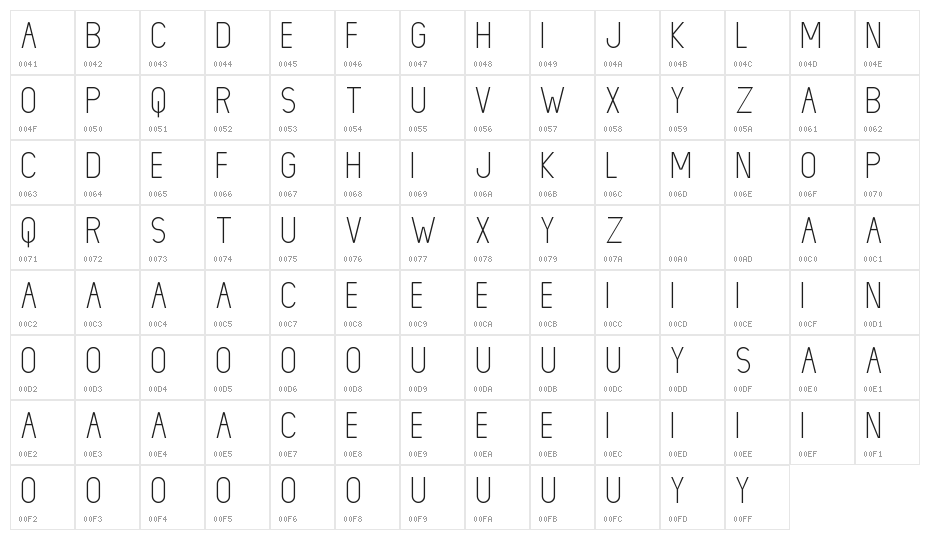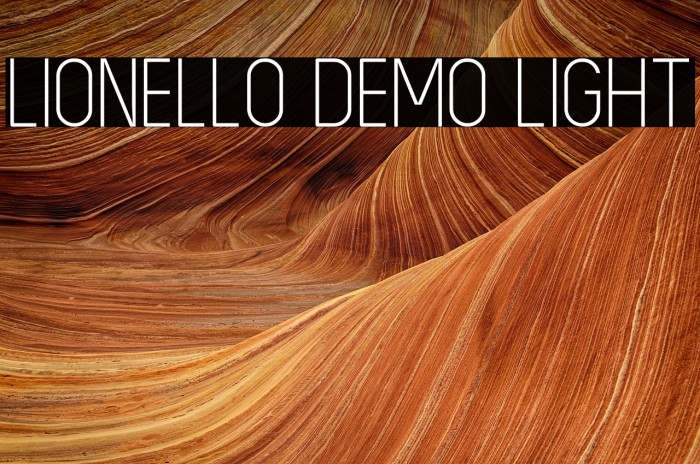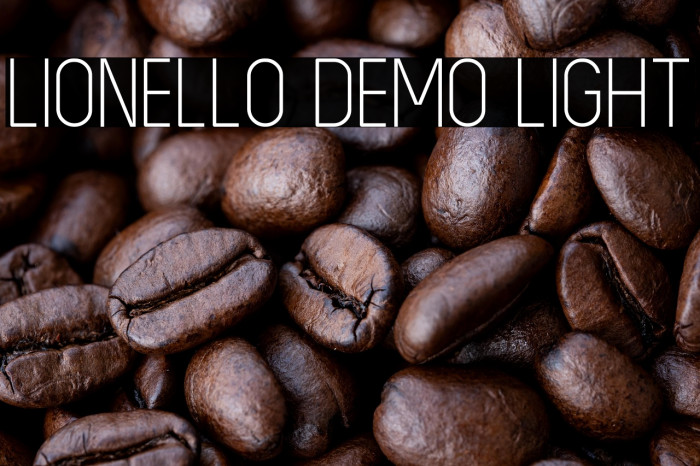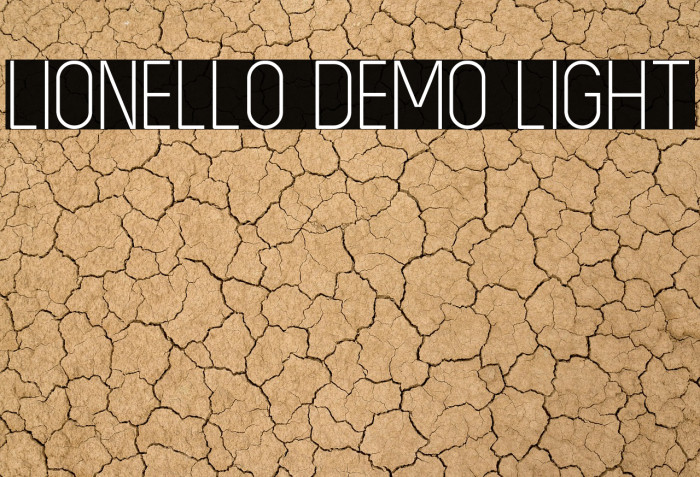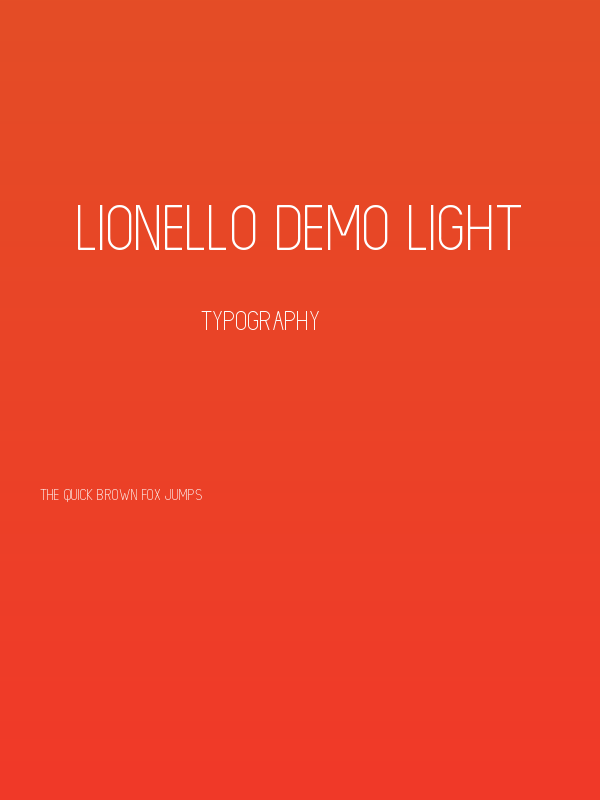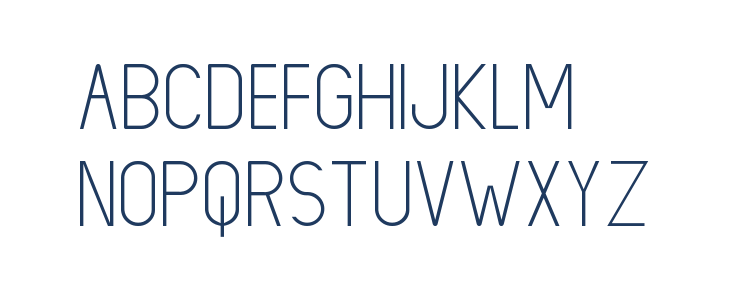
LIONELLO DEMO Light Font
LIONELLO DEMO Light Description
This font features a clean, geometric sans-serif style with a modern aesthetic. The characters are composed of straight lines and precise curves, giving it a sleek and minimalistic appearance. The uppercase letters are tall and narrow, while the lowercase letters maintain a consistent height, contributing to a uniform look. The font's thin strokes and open counters enhance readability, making it suitable for various design applications. Its simplicity and elegance make it versatile for both digital and print media. The spacing between characters is balanced, ensuring clarity and legibility.